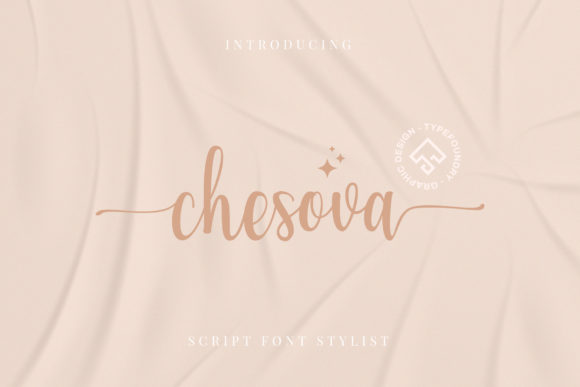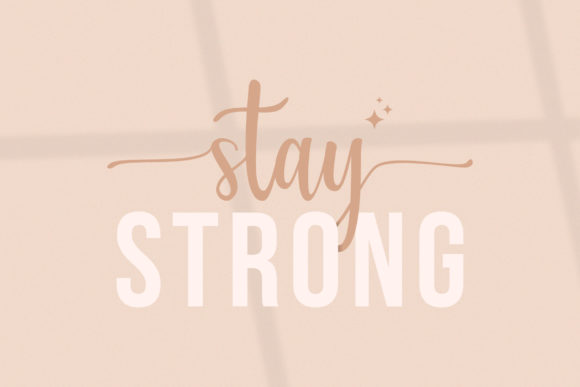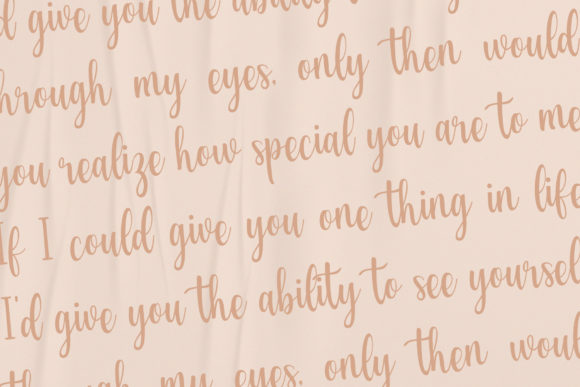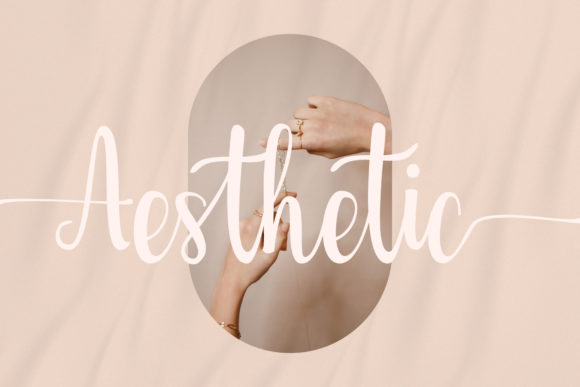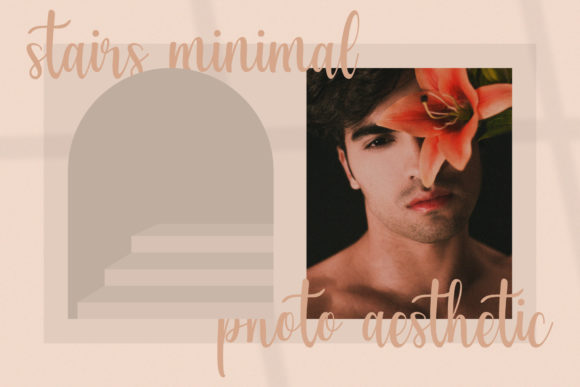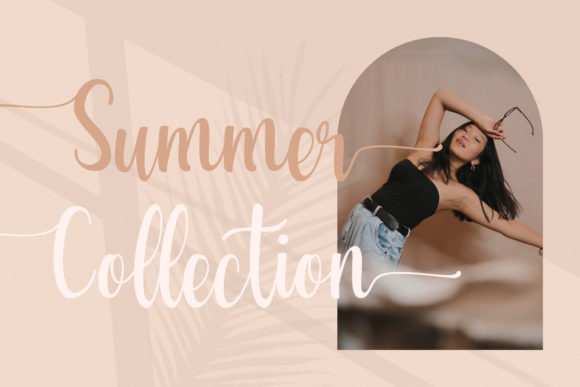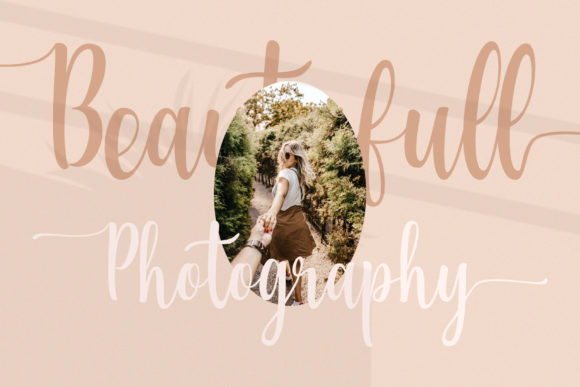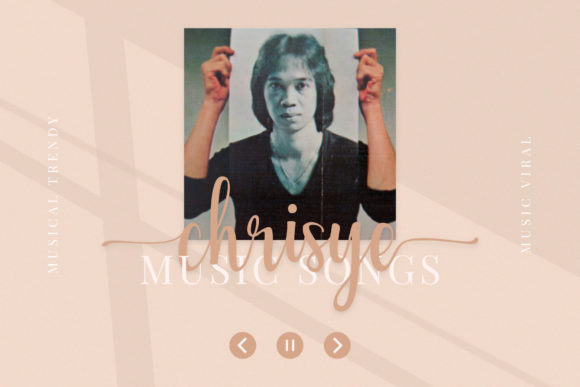
Chesova Font
About Chesova Font
Chesova is a stylish and refined handwritten font. It looks beautiful on a variety of designs requiring a personalized style, such as wedding invitations, thank you cards, weddings, greeting cards, logos and so much more. This font is PUA encoded which means you can access all of the glyphs and swashes with ease!